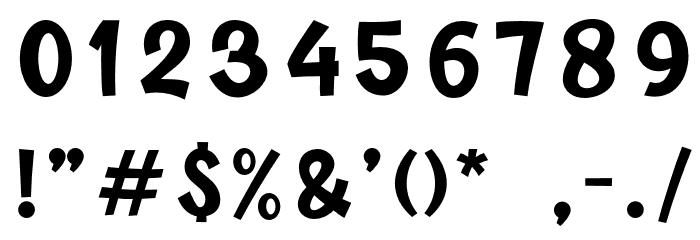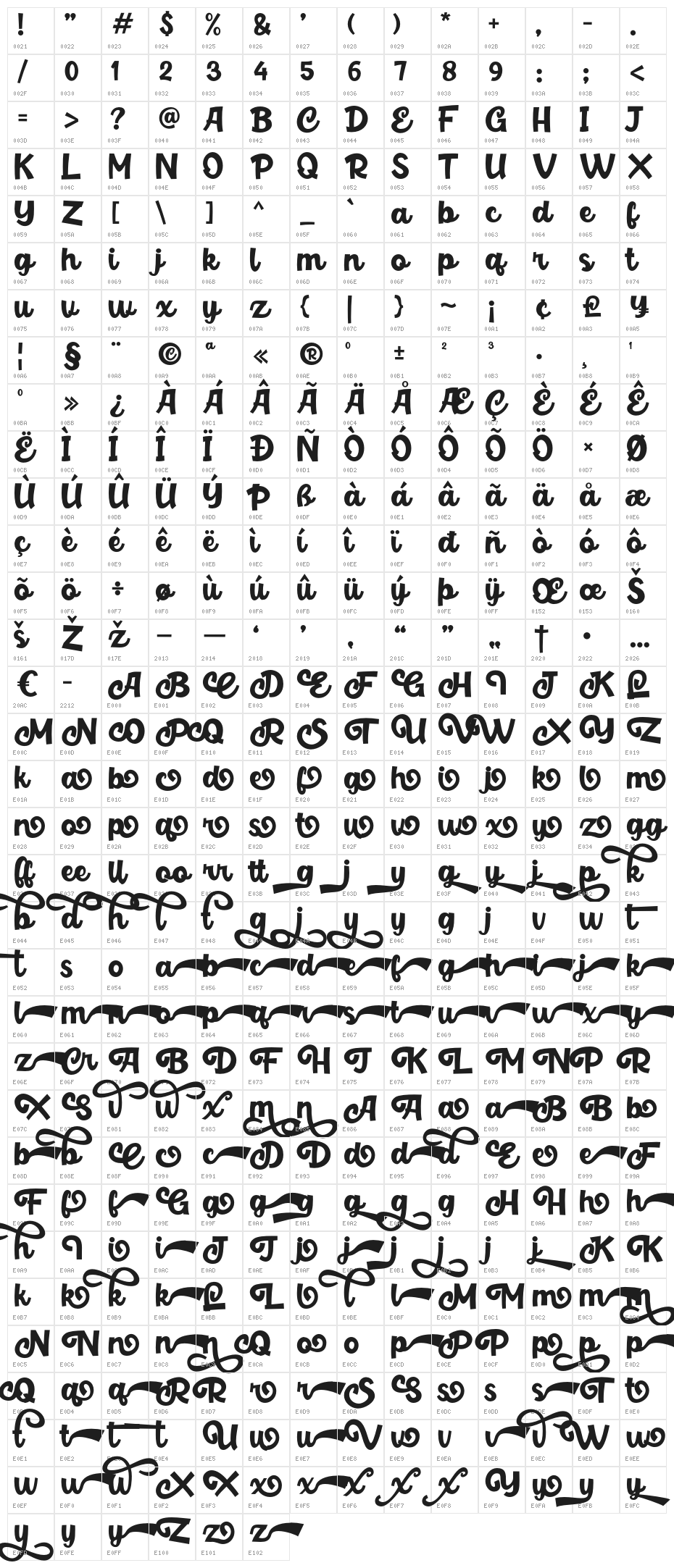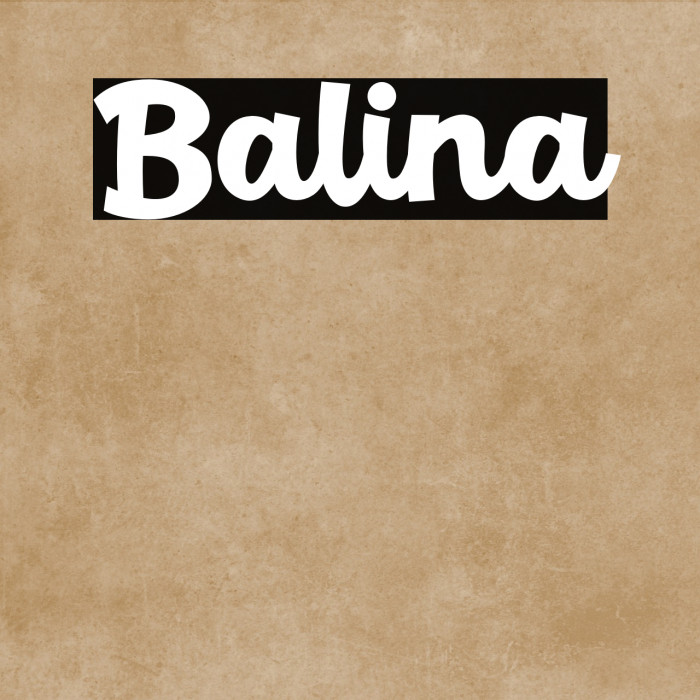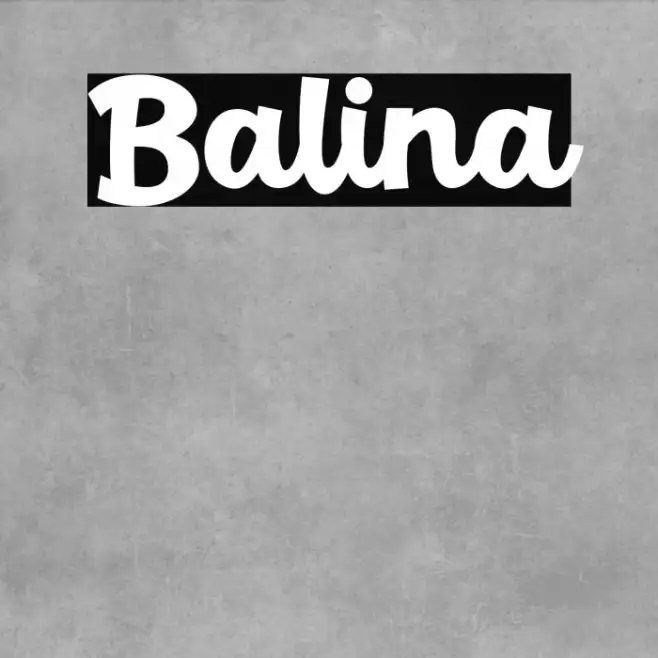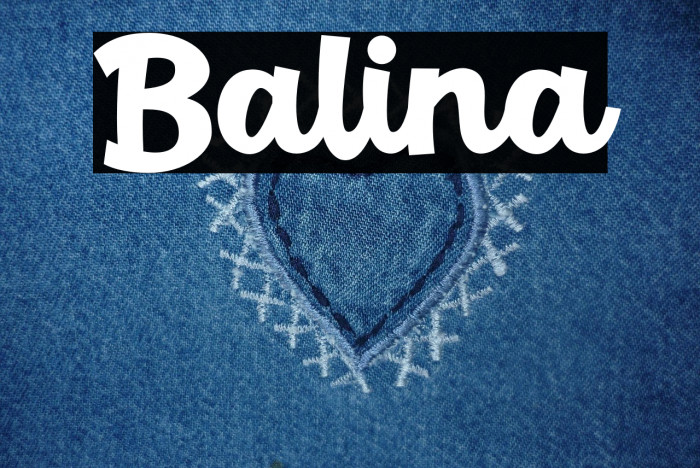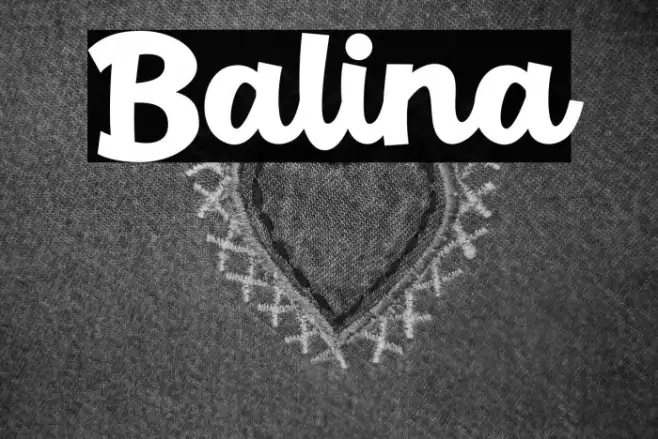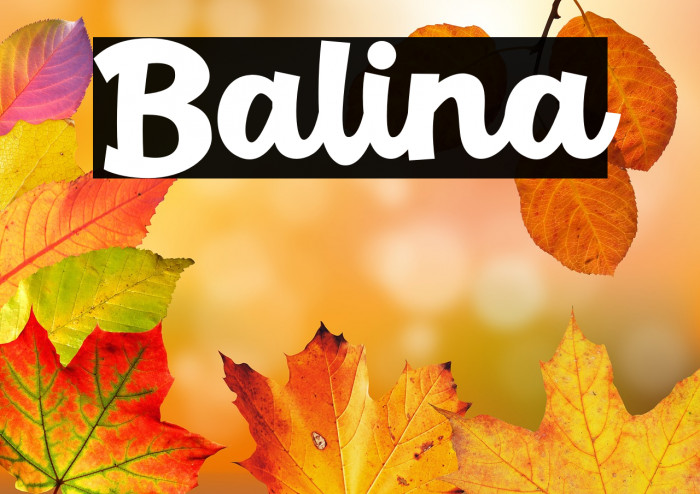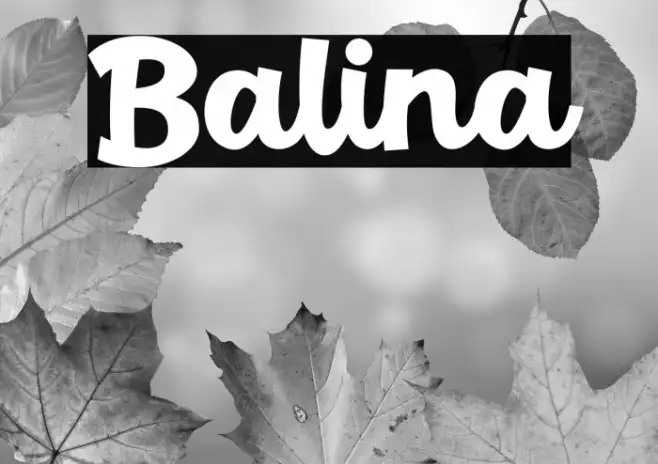
Balina Font
Balina Description
This font features a playful and bold script style with a hand-drawn appearance. The uppercase letters are characterized by their dynamic, flowing lines and slight slant, giving them a lively and energetic feel. The lowercase letters maintain a consistent style, with rounded edges and smooth curves that enhance readability. The numerals are bold and slightly rounded, matching the overall aesthetic of the alphabet. Special characters are well-integrated, maintaining the font's cohesive look. This font is ideal for projects that require a fun and informal touch, such as children's books, greeting cards, or playful branding.
| Overall Style | Playful, Energetic |
| Proposed Projects | Ideal for children's books, greeting cards, playful branding, and informal invitations. |